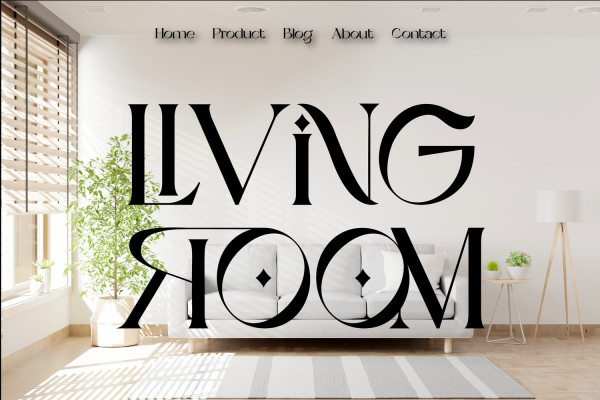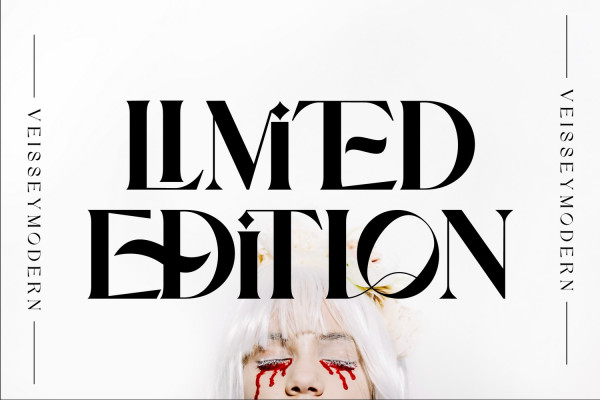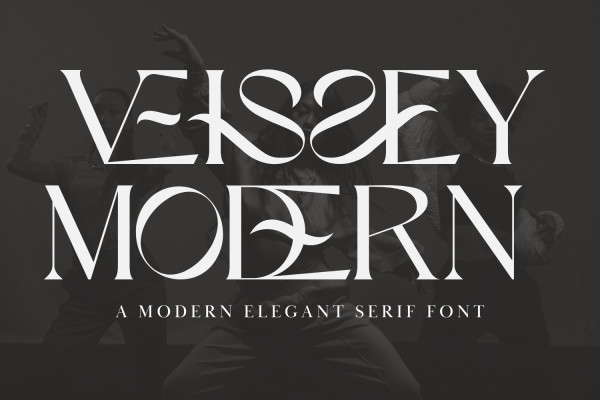
Veissey Modern Font
VEISSEY MODERN FONT is a elegant and classy serif typeface – This font is both modern and nostalgic and works great for logos, magazine, social media. Inspired by the famous minimalist logo perfect for the purposes of designing templates, brochures, videos, advertising branding, logos, invitation, layout design, elegant crafting, beauty design and other.
VEISSEY MODERN was built with OpenType features and includes 100 ligatures, alternate, numbers, punctuation, and it also supports other languages.
AC AD AL AN AR AS AT AU AV BE CA CE CH CO CT DE DI EA EC ED EE EL EM EN EP ER ES ET FE FO FR GE HA HE HI HO IE IC IL IN IO IR IS IT JU KE LA LE LI LL LO LY MA ME MI NC ND NE NG NO NT NS OC OF OM ON OO OP OR OT OU OW PA PR RA RD RE RI RO RS RT SE SH SI SO SS ST TA TE TH TI TO TR TT UM UN UR VE WI WO